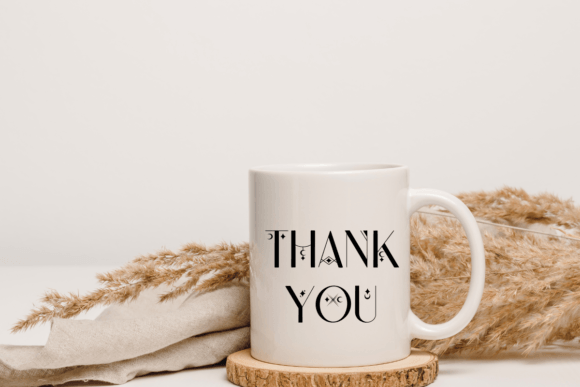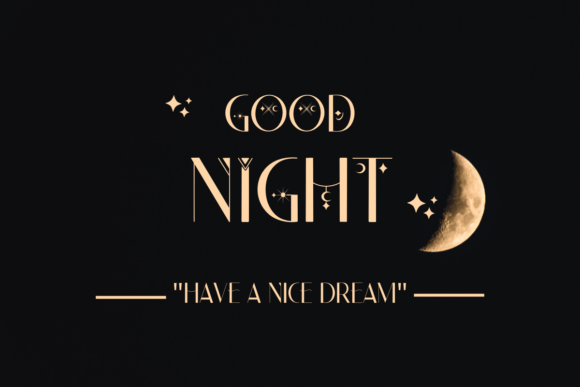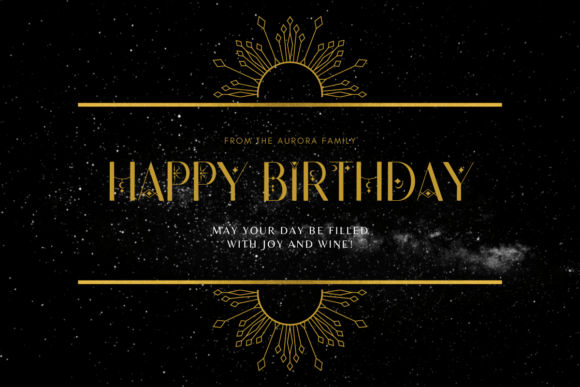
Mystic Font: A Bold Display Font for Eye-Catching Branding!
About the Mystic Font
Make a bold statement with Mystic Font, a powerful and memorable font. Mystic is a decorative font with stars, moons, and other magical symbols around each letter. It’s perfect for adding a touch of enchantment to your text.
Mystic’s whimsical design is ideally suited for headlines, short titles, logos, and packaging where its decorative elements add a touch of playful magic. It works exceptionally well for projects targeting children, fantasy-themed brands, or whimsical events. Avoid using it for body text or extended blocks of copy; its ornate nature hinders readability at smaller sizes.
For a balanced aesthetic, pair Mystic with a clean sans-serif like Open Sans for body text or a more geometric sans-serif such as Futura for a modern contrast. A simple serif like Garamond can also create a sophisticated juxtaposition, grounding the magical quality of Mystic.
The overall personality of Mystic is undoubtedly playful and enchanting, yet retains a level of sophistication that prevents it from feeling childish or overly simplistic. Its decorative elements add visual interest without overwhelming the design.
Mystic Font Usage Examples